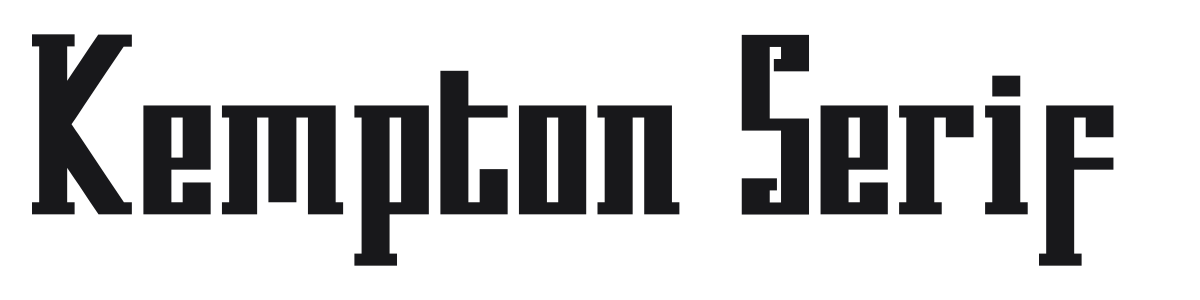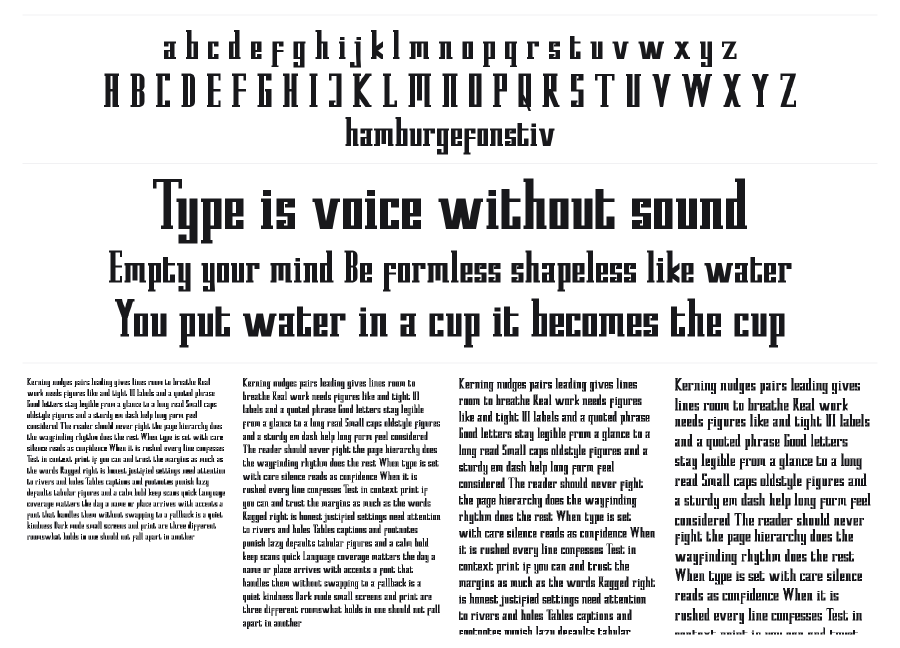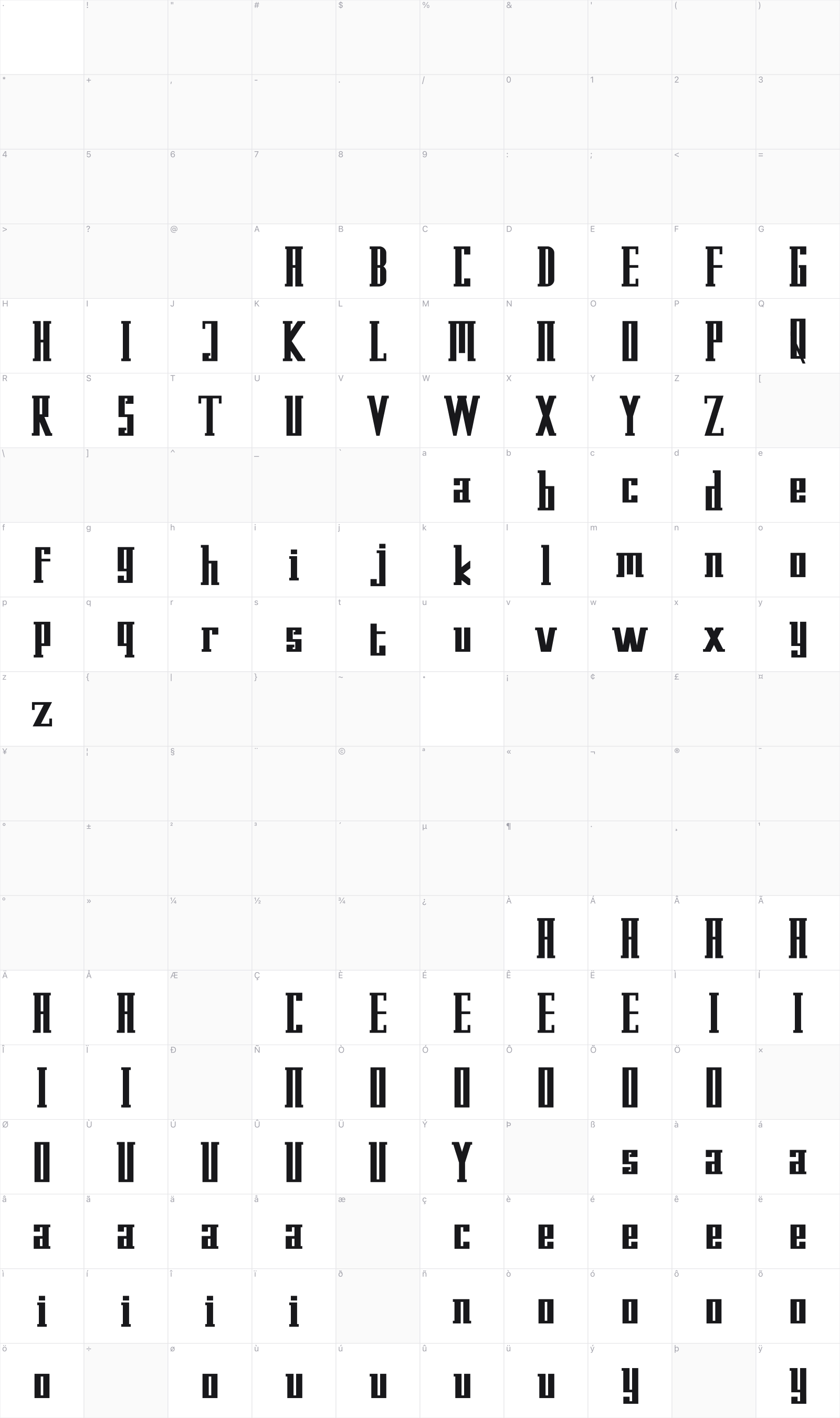
Kempton Serif
Kempton Serif is a heavy condensed serif with an architectural, Art Deco structure that commands attention at large sizes. The tall narrow proportions and sharp angular serifs give it a vintage poster quality rooted in 1930s woodtype tradition. It works best as a single-weight display face for headlines, titles, and bold brand marks.